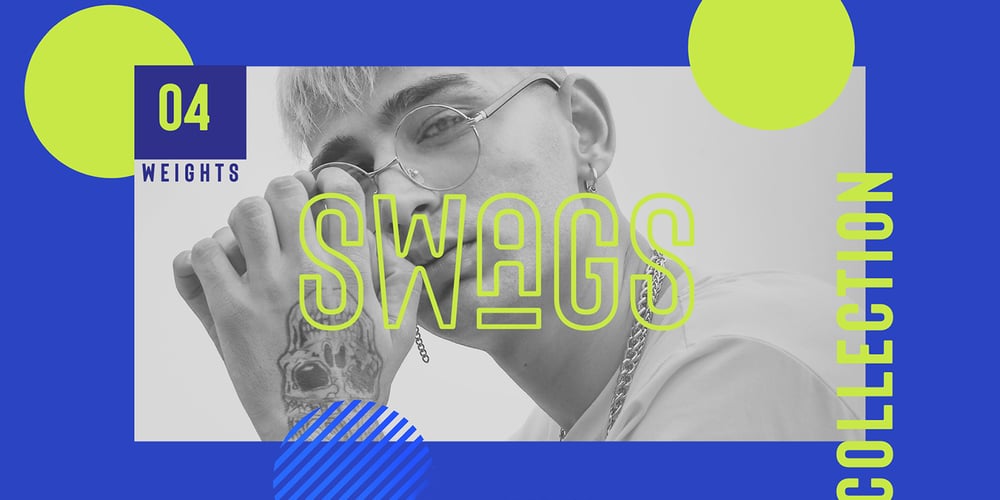
Swag Urbano Font Family was designed by Kurt Harahap and published by Kaligra.co. Swag Urbano contains 4 styles and family package options. Swag Urban is a young and cool playful bold sans serif font family made to be a perfect choice for titles and headlines. It works very well for posters especially for magazine or print but it’s versatile enough to be a good fit for a multitude of projects as well as for logos or other graphics that require strong and impactful typography. Have fun and create more.. Your Imagination only your limit!!